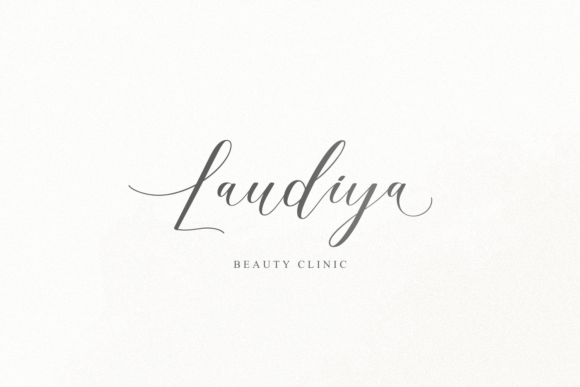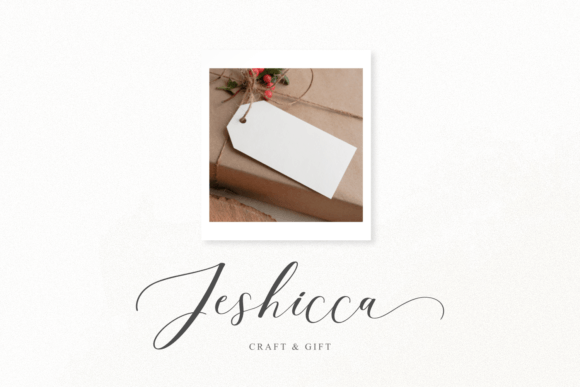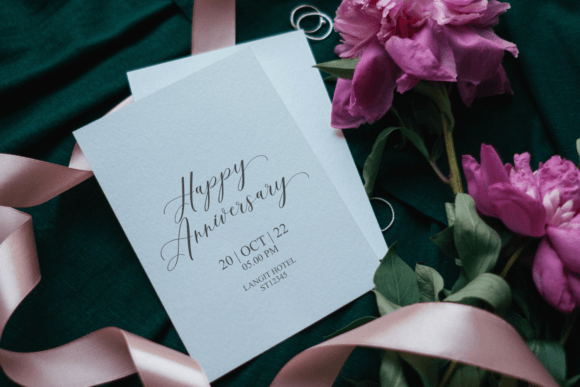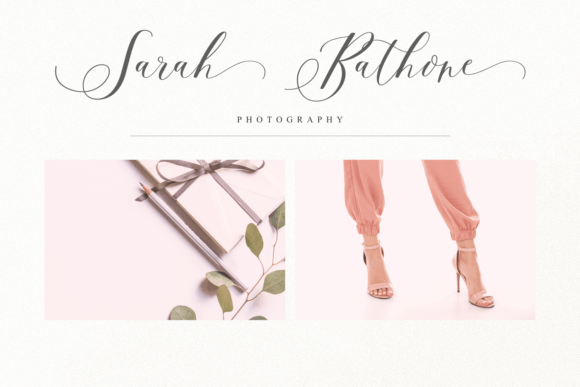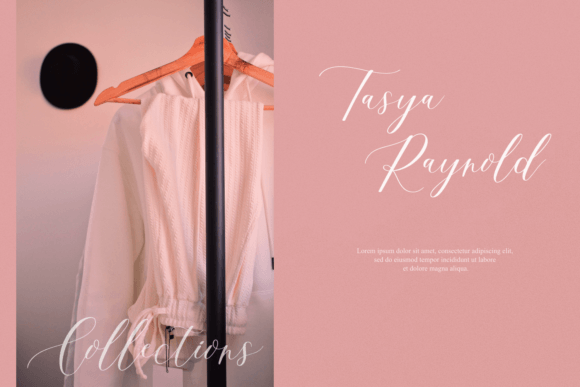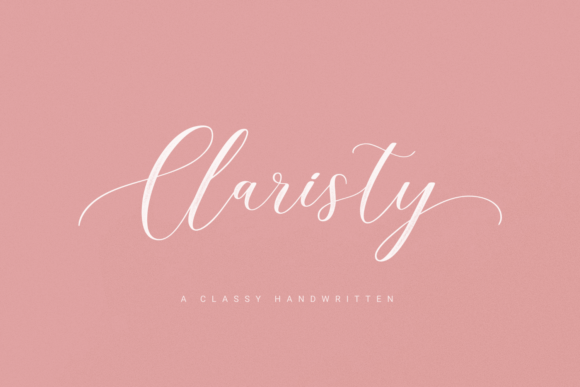
Introduction to Clariesty Font
Clariesty is a classy handwritten font with an elegant style.
Add it to your logos, labels, branding, invitations, websites, quotes, and more, and it will boost your designs and make them a true standout This font is PUA encoded, which means you can access all of the glyphs and swashes with ease.